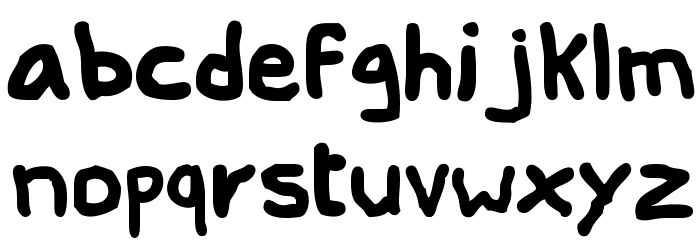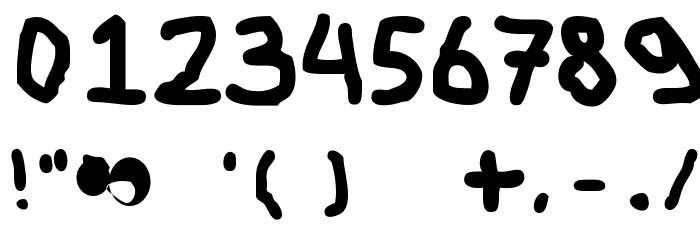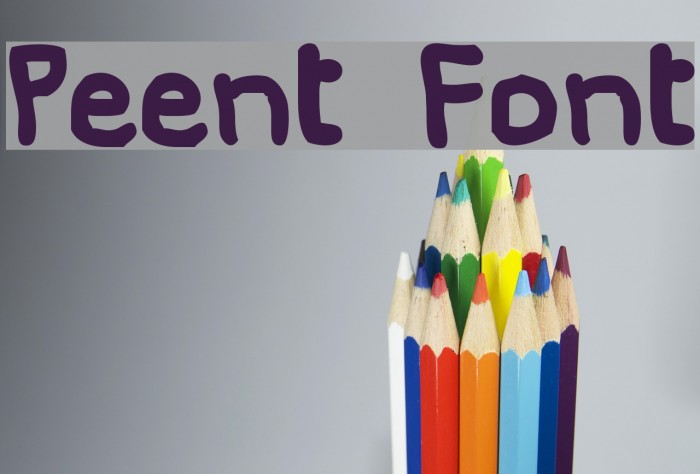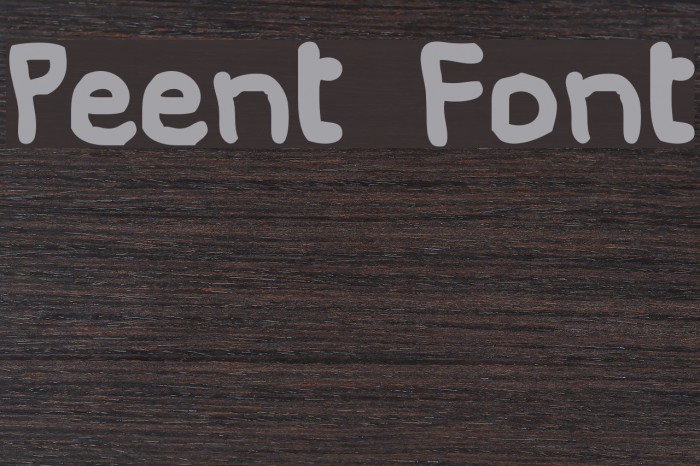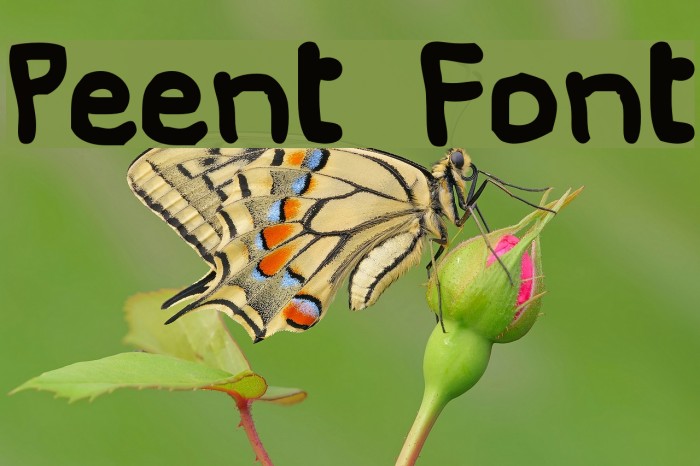
Peent Font
This playful and bold font features a hand-drawn, organic style with a casual and friendly appearance. The letters are characterized by uneven strokes and a slightly irregular baseline, giving it a whimsical and informal feel. The uppercase and lowercase letters maintain a consistent style, with rounded edges and a slightly exaggerated width. Numbers and special characters follow the same playful design, ensuring a cohesive look across all text elements. This font's unique charm makes it stand out, making it ideal for projects that require a touch of personality and creativity.
A playful, hand-drawn font with bold, rounded strokes and a whimsical style.
- Proposed Projects: Ideal for children's books, playful branding, casual invitations, and creative posters.